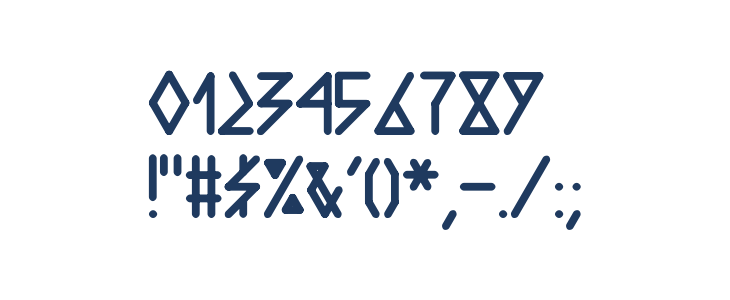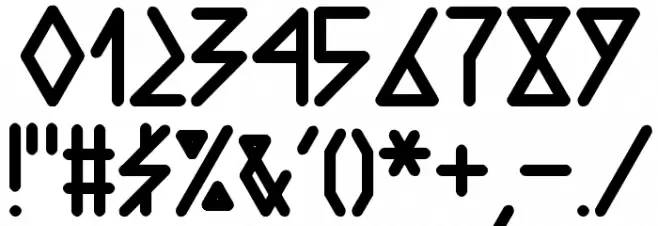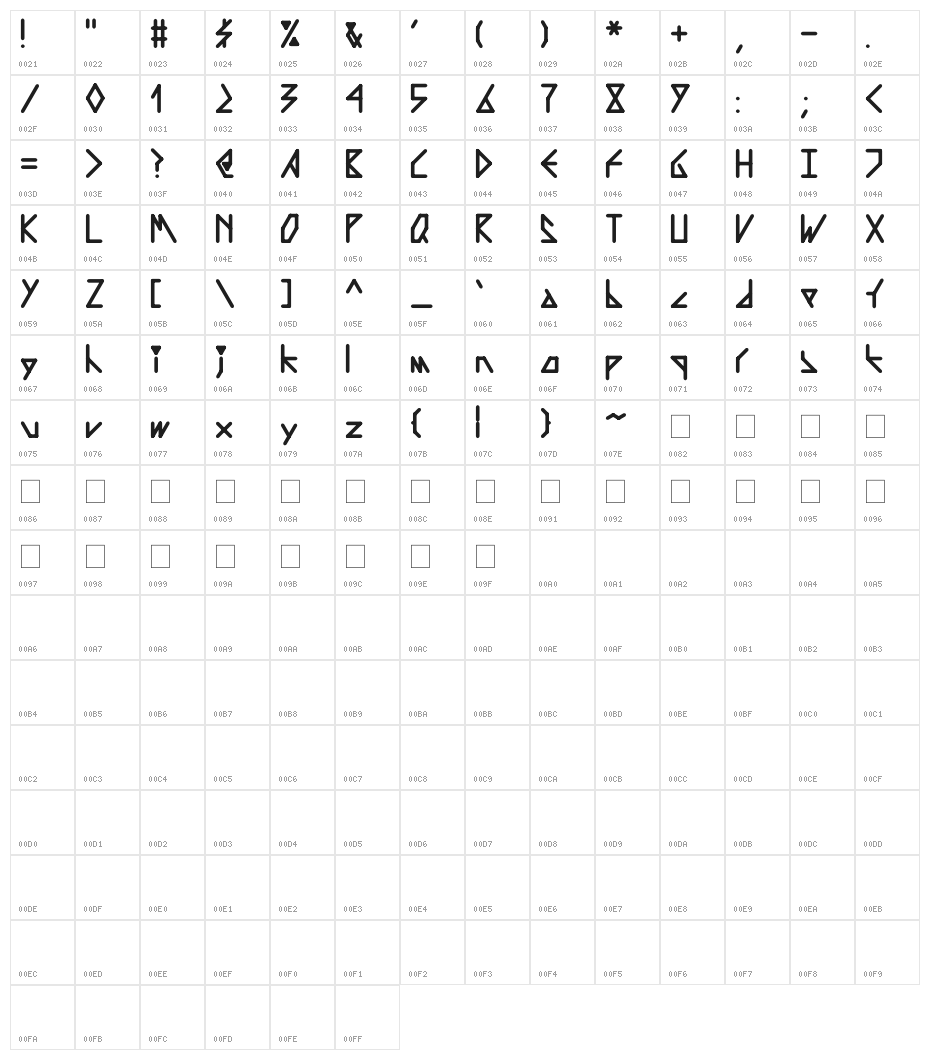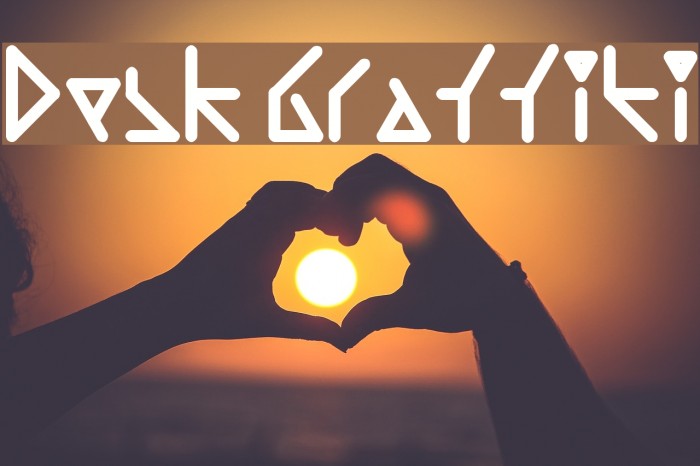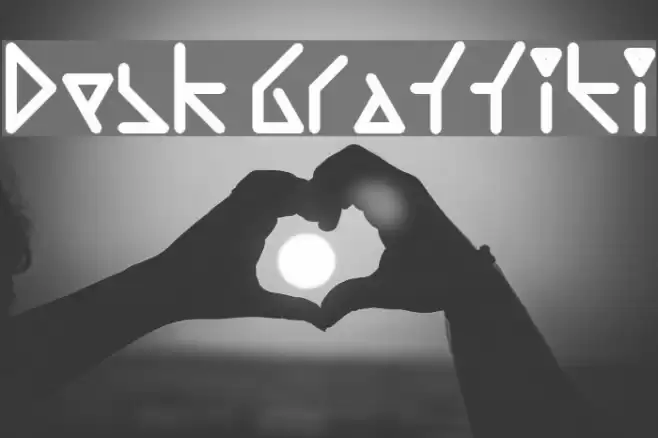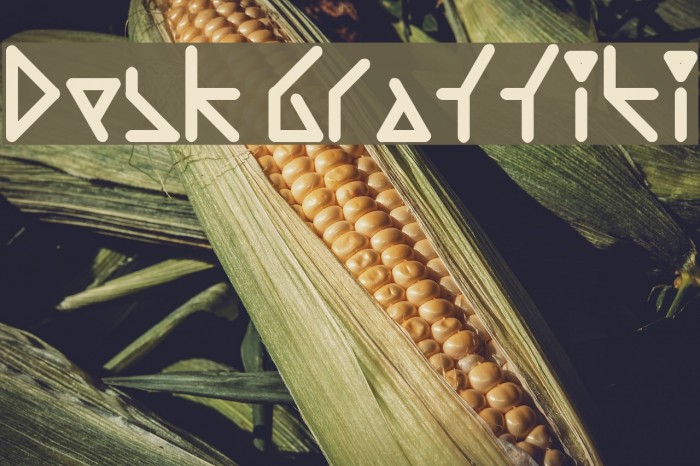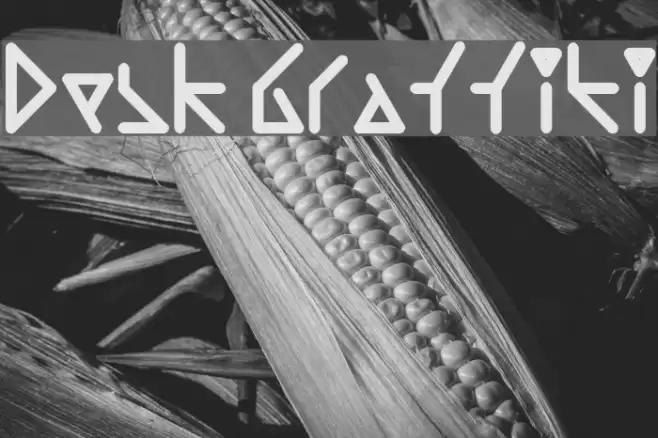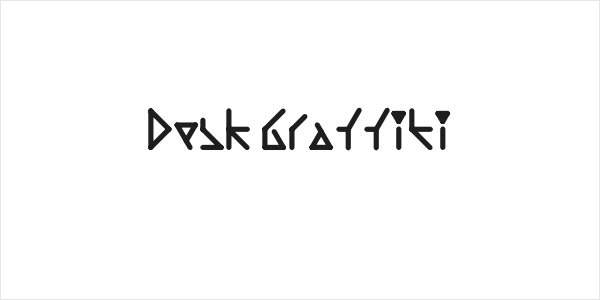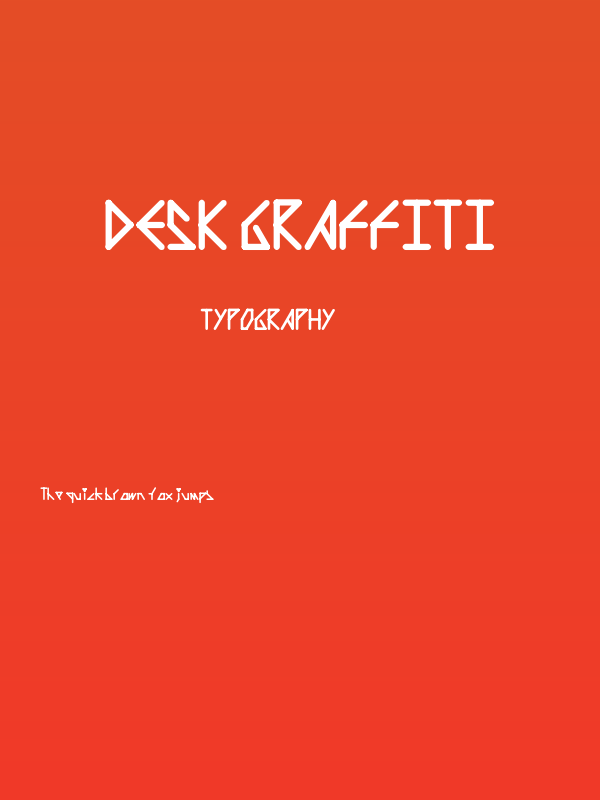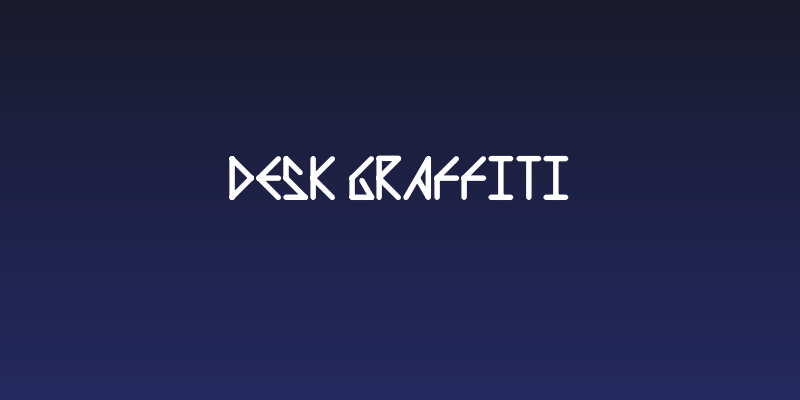
Desk Graffiti Font
Desk Graffiti Description
This font features a bold and edgy design, reminiscent of graffiti art. The characters are angular and geometric, with a consistent thickness throughout each letterform. The uppercase and lowercase letters maintain a cohesive style, with sharp edges and a modern aesthetic. Numbers and special characters follow the same design principles, ensuring uniformity across all glyphs. The font's unique style makes it stand out, capturing attention with its unconventional and artistic flair.
| Proposed Projects | Ideal for street art projects, urban-themed designs, posters, and edgy branding materials. |